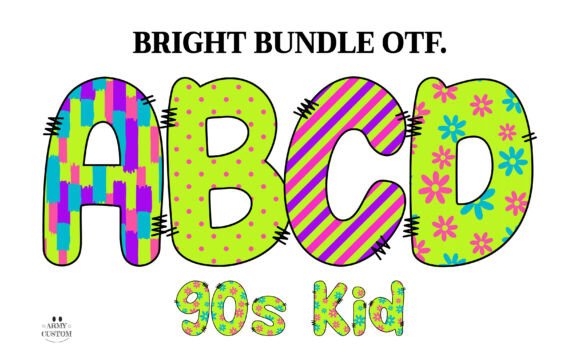
The Brightarmy Polkadot Font: A Vibrant Blast from the Past
I’ll never forget the design project that led me to discover the Brightarmy Polkadot Font. I was working on a children’s party invitation, and my client asked for a playful, retro vibe that would appeal to both kids and adults. As I scoured font libraries and online marketplaces, I stumbled upon this delightful font that instantly transported me back to the ’90s. The Brightarmy Polkadot Font is a vibrant, energetic typeface that embodies the bold spirit of childhood memories: scrapbooks, sticker collections, and after-school doodles.
- ✅ The font’s patchwork feel, with hand-stitched outlines and vivid, nostalgic patterns like checkerboards, polka dots, florals, and painterly brushstrokes.
- ✅ The four energetic type styles, which offer versatility for various design projects.
- ✅ The way the font combines digital precision with a handcrafted, patchwork feel that instantly commands attention and radiates joy.
- ⚠️ The font’s display-oriented design means it’s best suited for headlines, titles, and short text, rather than body copy.
- ⚠️ Some users may find the layered textures and pastel colors a bit overwhelming or difficult to pair with other design elements.
The Brightarmy Polkadot Font was inspired by the designer’s childhood memories of scrapbooking, sticker collecting, and doodling. The font’s creator wanted to capture the playful, carefree spirit of these activities and bring them to life in a digital typeface. Through a combination of hand-stitched outlines, vivid patterns, and layered textures, the Brightarmy Polkadot Font embodies the joy and creativity of childhood.
| What type of designs is the Brightarmy Polkadot Font best suited for? | The Brightarmy Polkadot Font is ideal for headlines, stickers, children’s products, school-themed graphics, and retro-style branding. |